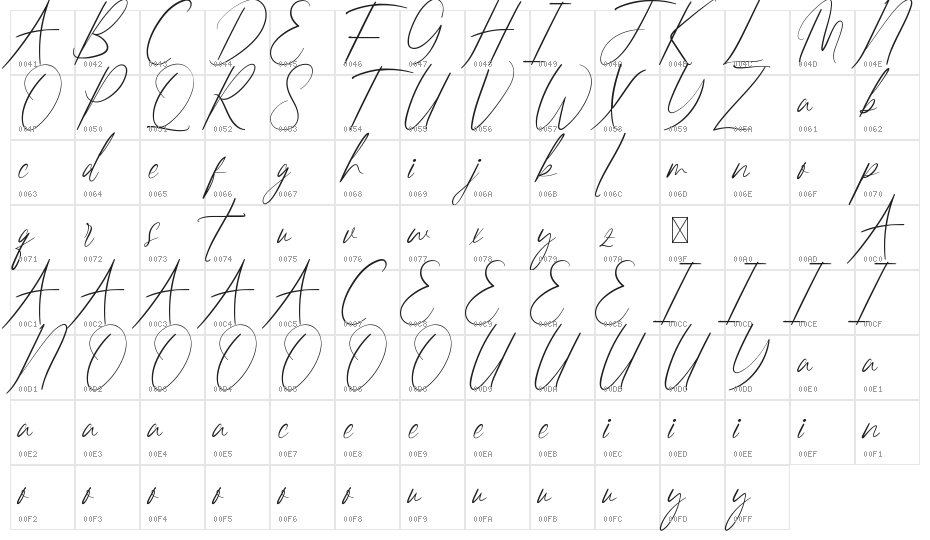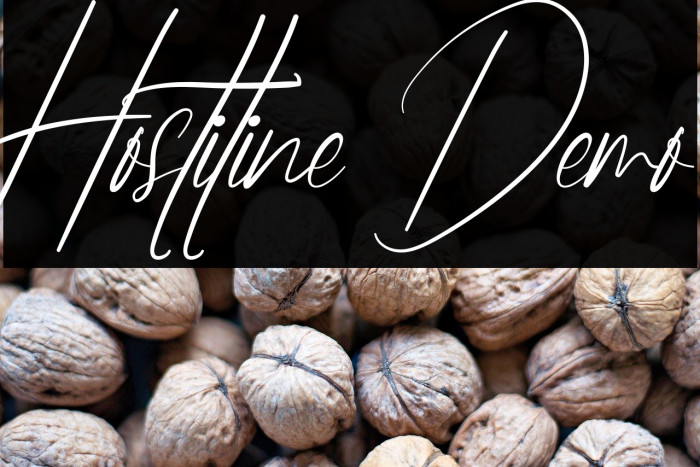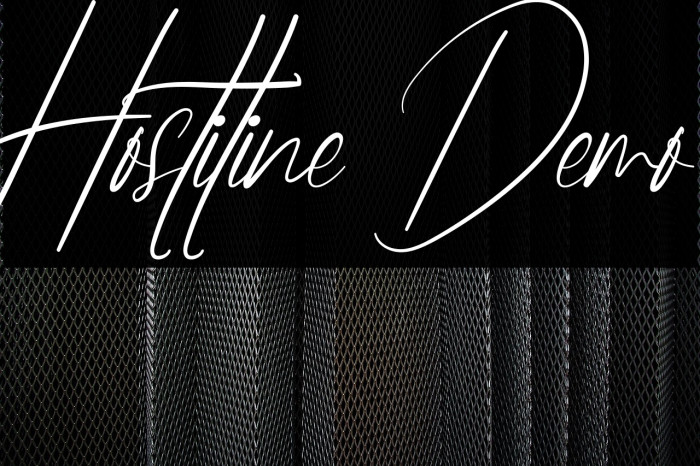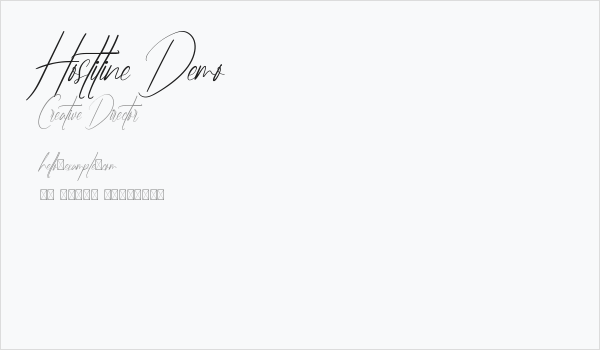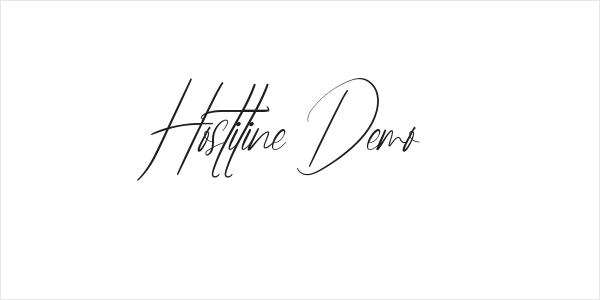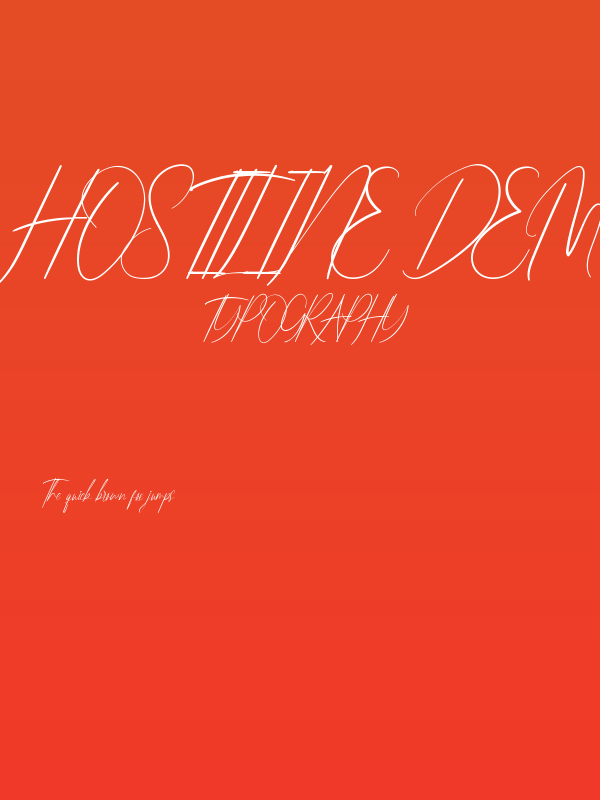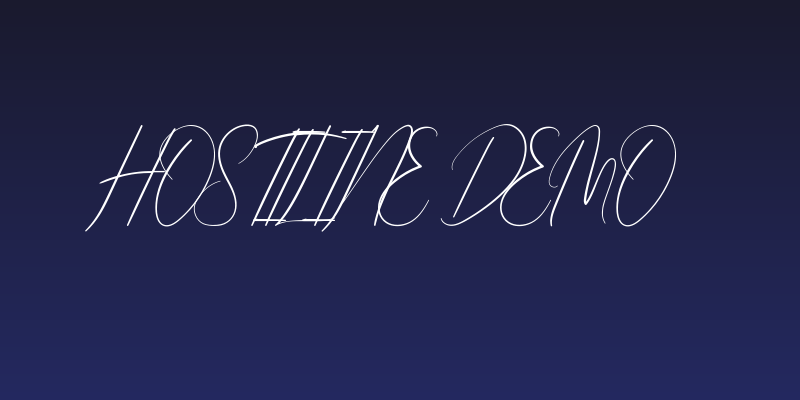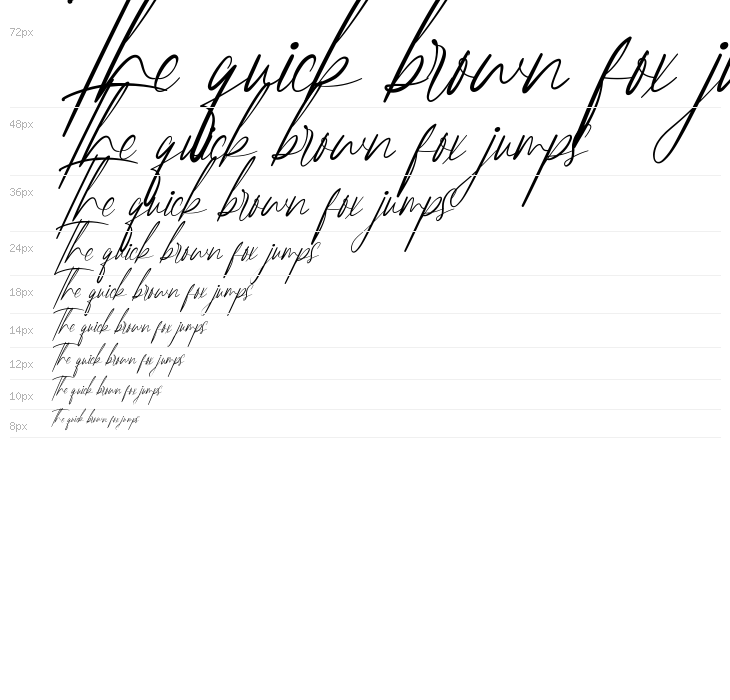
Hostiline Demo Font
Hostiline Demo Description
A decorative script font with elongated, flowing strokes and high contrast, giving it an elegant and artistic appearance.
| Use Case | Logos, Invitations |
| Proposed Projects | Invitations, branding, artistic projects. |